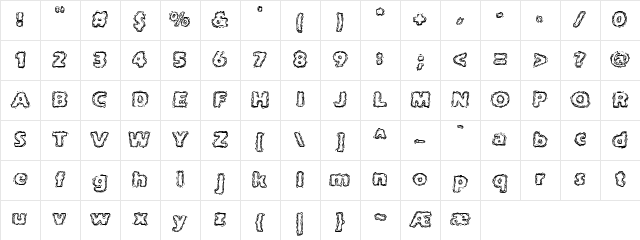
Jolt Of Caffeine (BRK) is a composed and adaptable typeface that performs quietly and consistently across a wide range of design contexts.
Pro Tip: Use Jolt Of Caffeine (BRK) in both headline and body roles to test its range before committing to a single application.